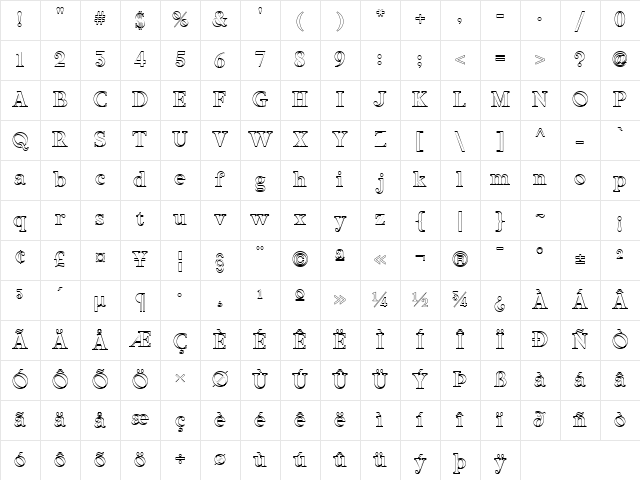
Rubino Medium
Rubino Family
Complete Rubino Medium glyph index. Displaying only characters natively supported by Rubino Medium font.
Design Context for Rubino
Rubino is a composed and adaptable typeface that performs quietly and consistently across a wide range of design contexts.